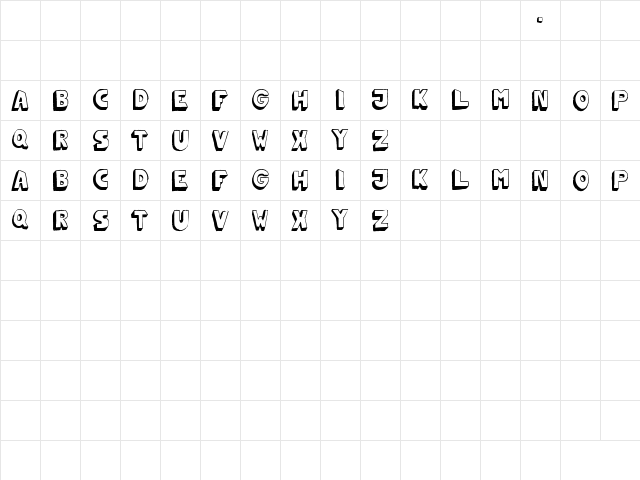
Mono2poser Regular
Design Context for Mono2poser Typeface
Mono2poser brings the precise, column-aligned rhythm of monospaced typography to designs that value technical clarity and systematic order.